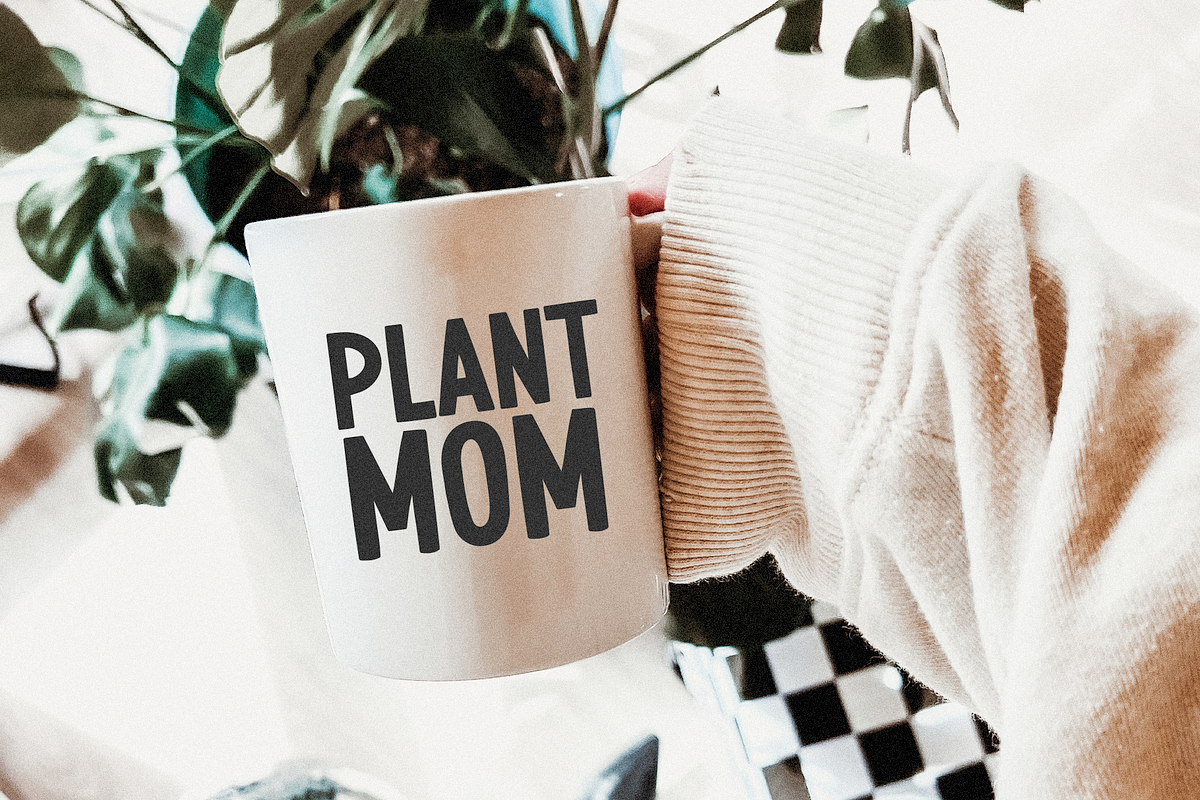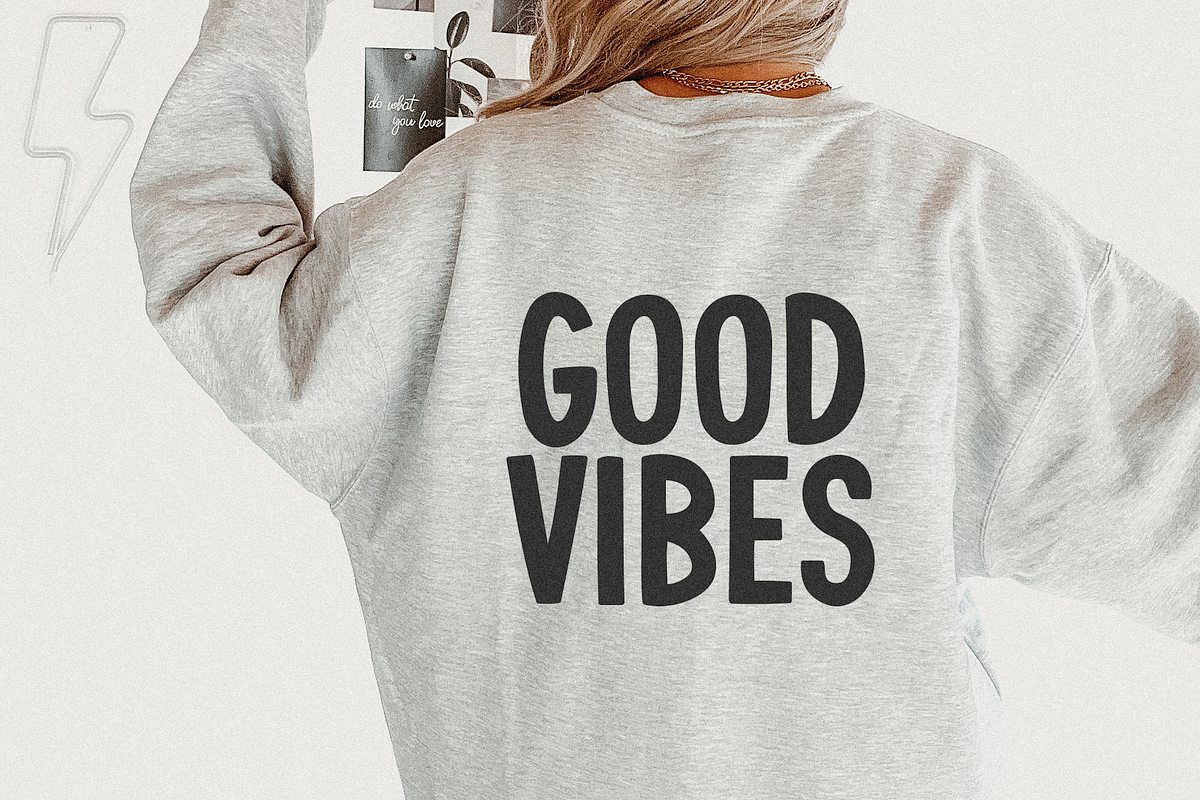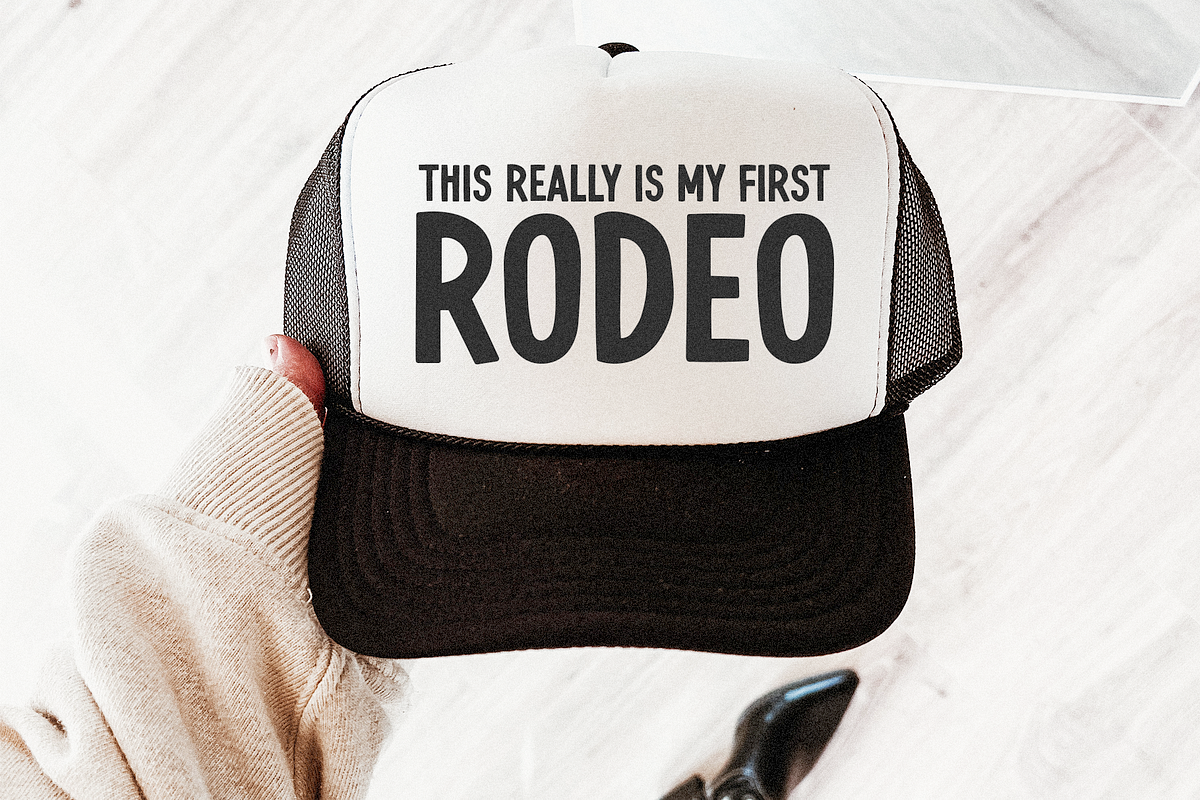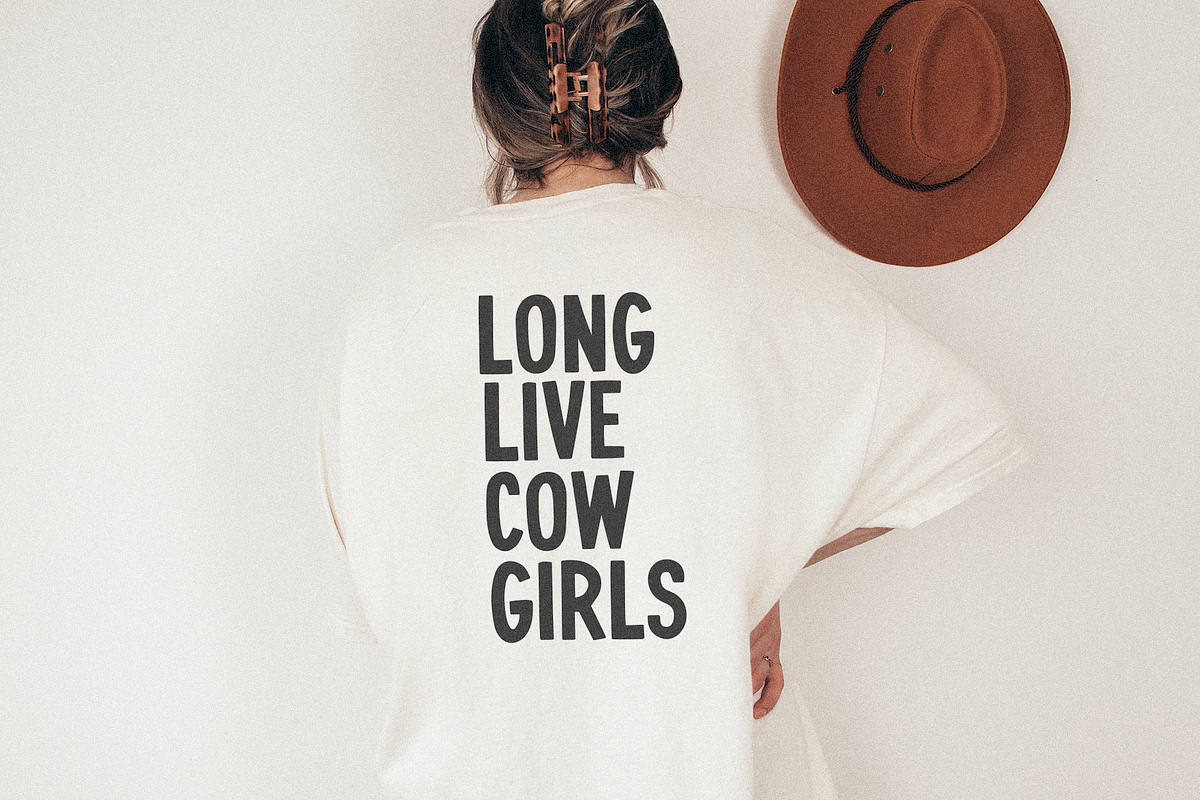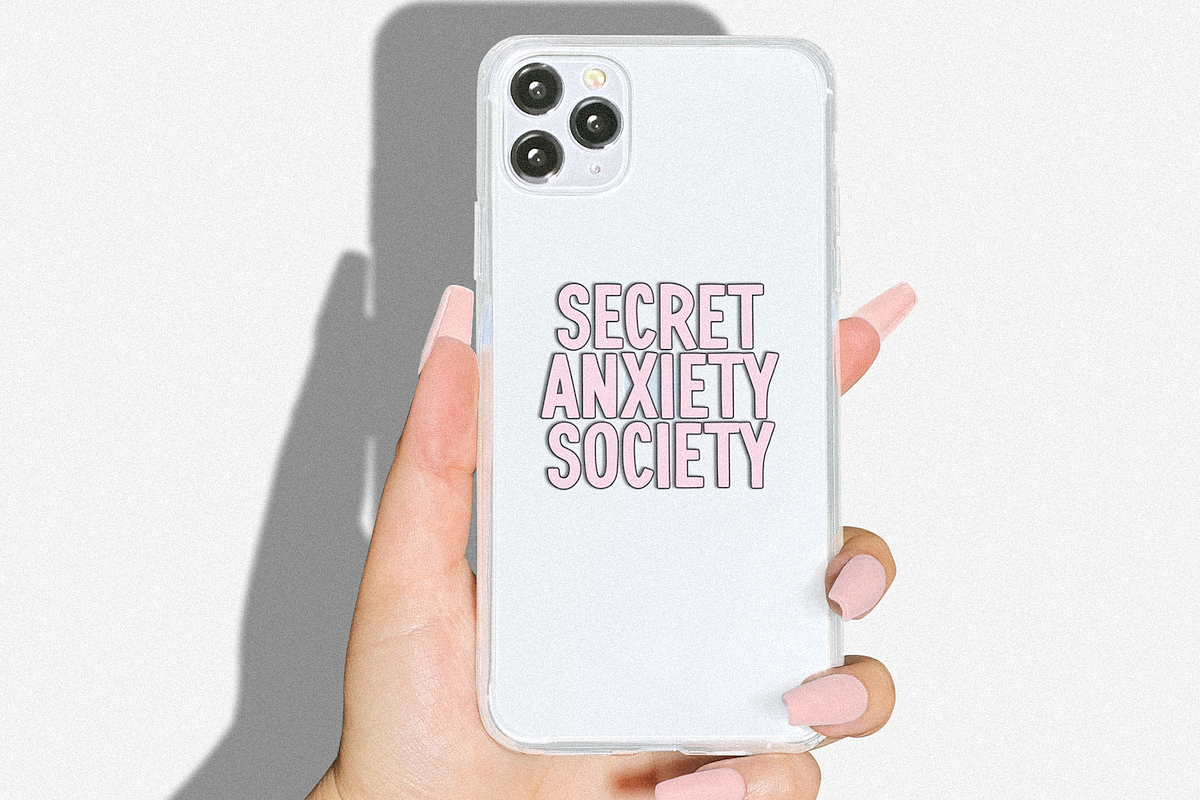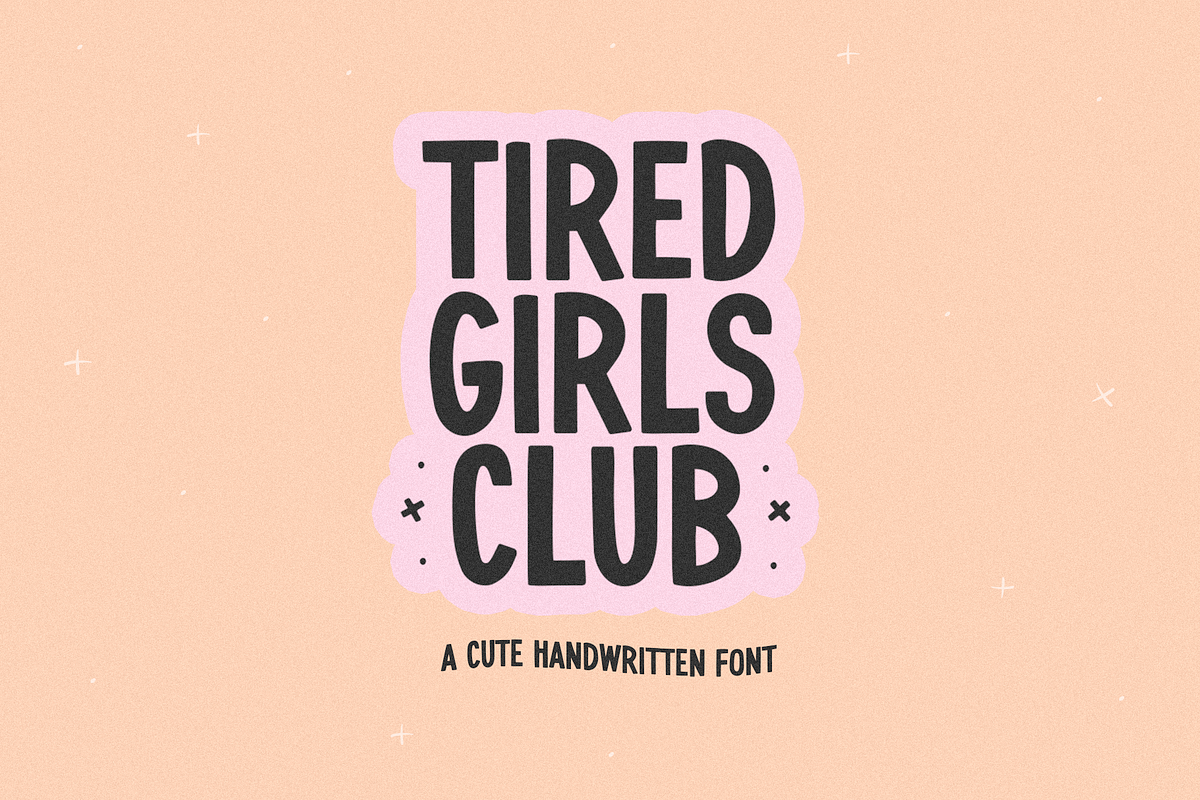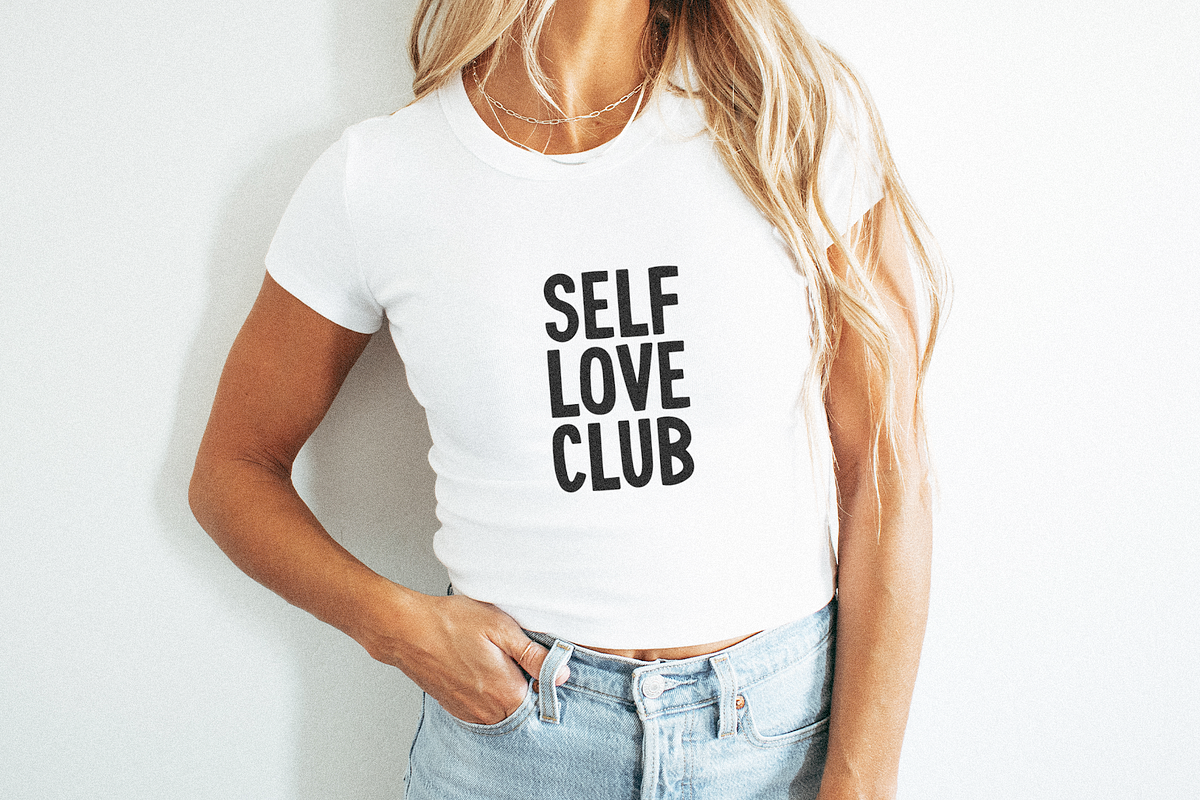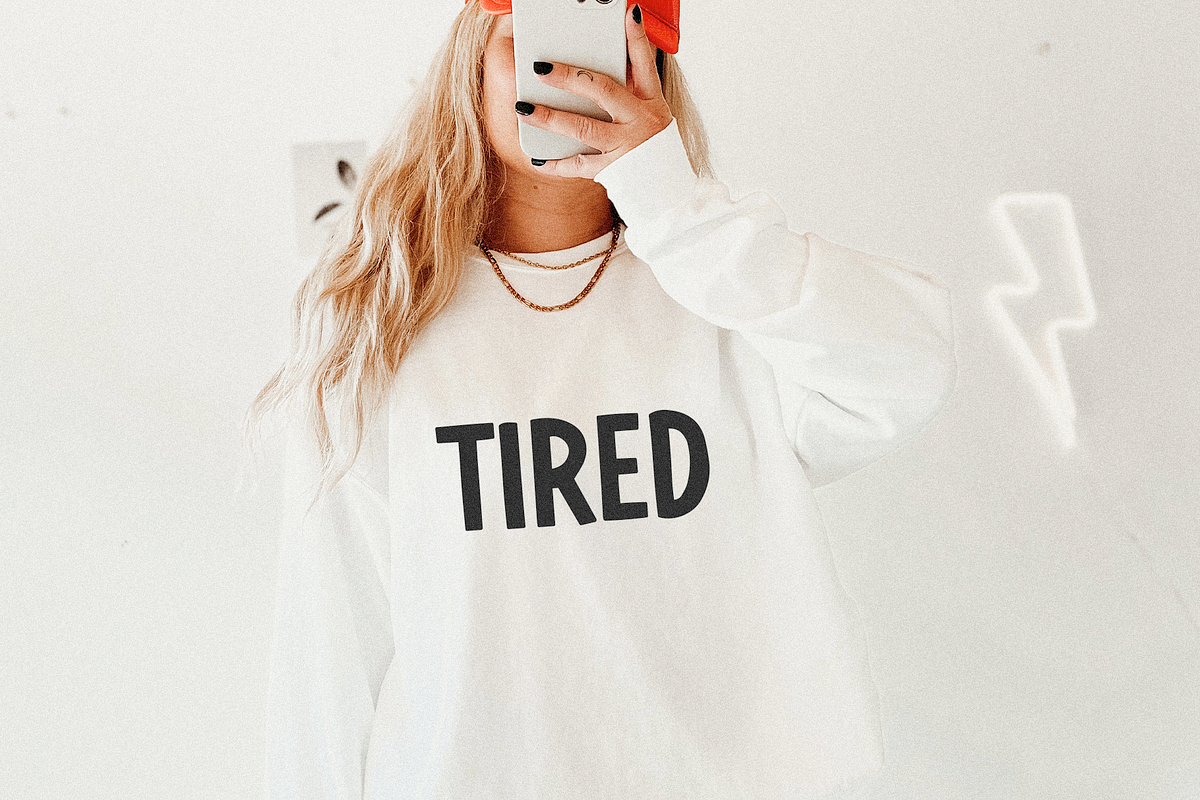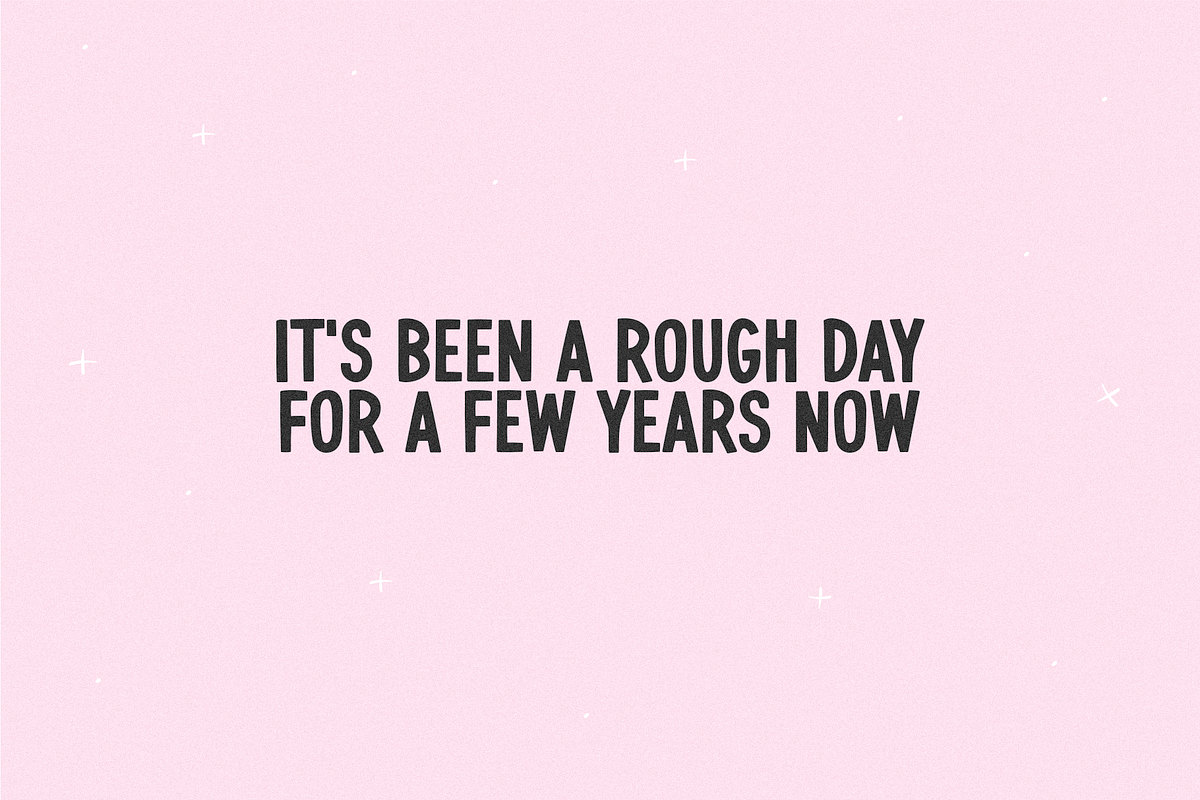
Tired Girls Club | Cute Sans Font
Tired Girls Club is a cute handwritten sans font that is perfect for quotes, shirts, social media, svg files, logos, retro designs, hats, mugs, and more!